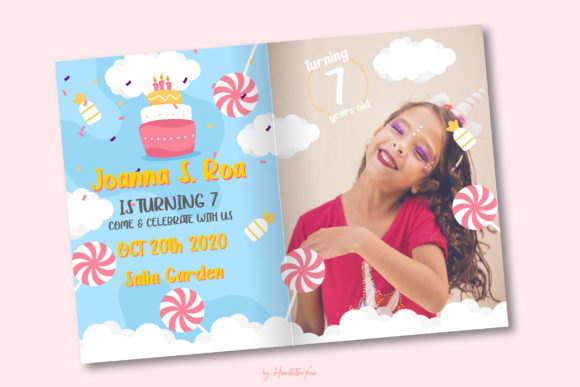
Katty Purry is a cute and funny cat-themed font. This font is big, bold and unique. The handwritten touch of this font will make your project look more natural and simply purr-fect!